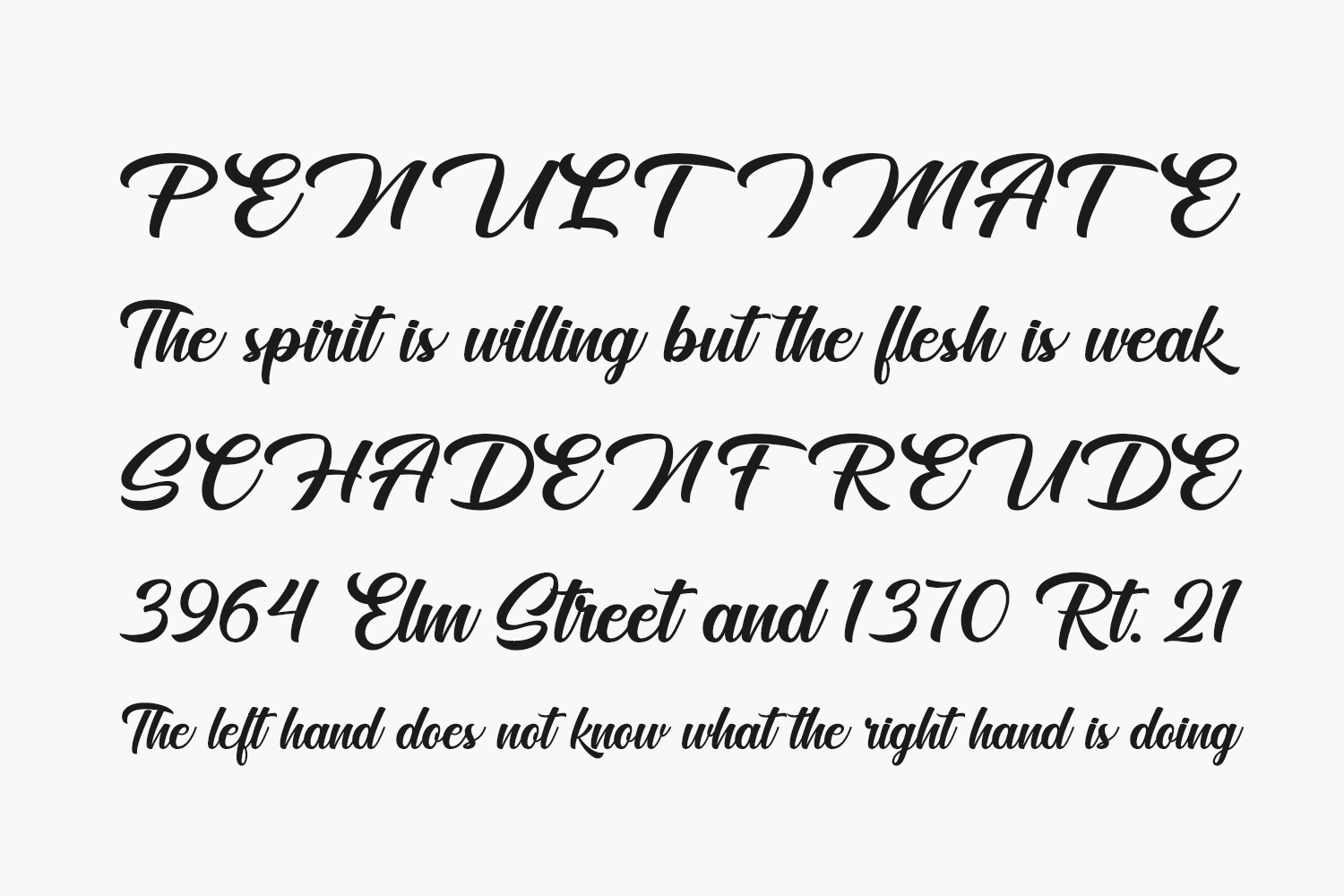
Discover the exquisite beauty of Lolyta Script Free Font, a captivating script font designed to infuse your projects with a touch of timeless elegance. Fall under the spell of its distinct charm and unleash its potential to elevate your designs to new heights. Perfect for headlines and logotypes, Lolyta exudes strength, confidence, and dynamism, injecting a nostalgic allure into every creation. Experience the magic of Lolyta and transform your designs into breathtaking works of art. Download the font for free if you need it for personal use or purchase the full version for commercial use.
Designed by RGB Studio